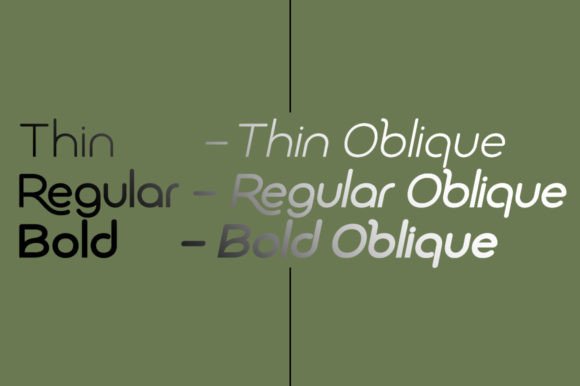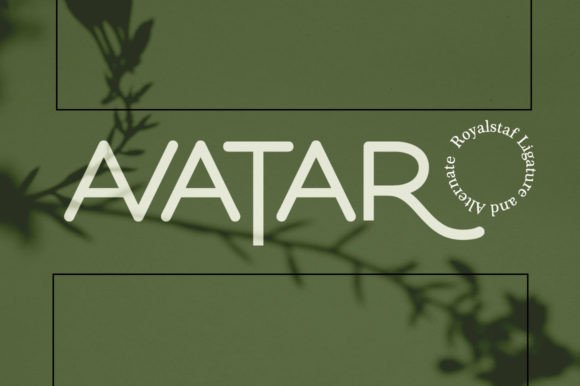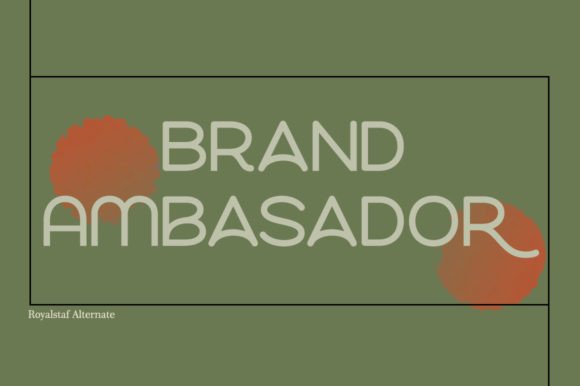
Introduction to Royalstaf Font
Remember the moment when you finally found the perfect font for your design project? The one that made all the elements come together in harmony? For designers, that moment is priceless. It’s the result of countless hours of searching, experimenting, and perfecting. And when you stumble upon a font like the Royalstaf Font, it’s like hitting the jackpot.
| 👤 Author | Tony Type Studio |
The Royalstaf Font is a modern Sans Serif font that offers a unique style and versatility that can elevate any creative project. With its beautiful alternatives and ligatures, it adds a touch of sophistication and elegance to your design. Whether you’re working on a branding project, creating a website, or designing a brochure, the Royalstaf Font is an excellent choice.
Key Features of Royalstaf Font
- High-quality, elegant font design suitable for creative projects and design resources.
- Features a transparent background, making it easy to overlay on images and backgrounds.
- Available in a range of sizes, from 12 to 72 points, to suit various design needs.
- Designed with high resolution in mind, ensuring crisp and clear text display on screens and prints.
- Unique, hand-crafted design elements that add a touch of sophistication to any creative project.
- Perfect for use in graphic design, branding, and digital art, as well as for personal use in creative projects.
Honest Review: Royalstaf Font
I recently stumbled upon the Royalstaf Font, a free download that caught my attention with its elegant and sophisticated design. As a designer, I appreciate high-quality design resources like this one, especially when they’re available for free.
Here’s what I like about the Royalstaf Font:
- ✨ Its transparent background makes it easy to overlay on any image or design element, giving me more creative freedom in my projects.
- ✨ The font’s elegant design makes it perfect for any creative project that requires a touch of luxury, from wedding invitations to luxury brand logos.
- ⚠️ The font may not be suitable for all types of text, as it can be quite ornate and may not be as readable in smaller sizes.
- ⚠️ I also noticed that the font may not be fully compatible with all operating systems, which could be a concern for designers who need to share their work with clients or collaborators.
Overall, I’m impressed with the Royalstaf Font’s high quality and elegant design. While it may have some limitations, it’s a great addition to any designer’s toolkit, especially for creative projects that require a touch of luxury.
Tips for Getting the Most Out of Royalstaf Font
To get the most out of Royalstaf Font, try combining it with a transparent background to create a high-quality design. You can also use it in conjunction with other design resources to create a unique and creative project.
The Royalstaf Font is a versatile design resource that can be used in a variety of creative projects, including business cards, logos, and infographics. It’s also a great choice for designers who need a high-quality font with a transparent background for free download.